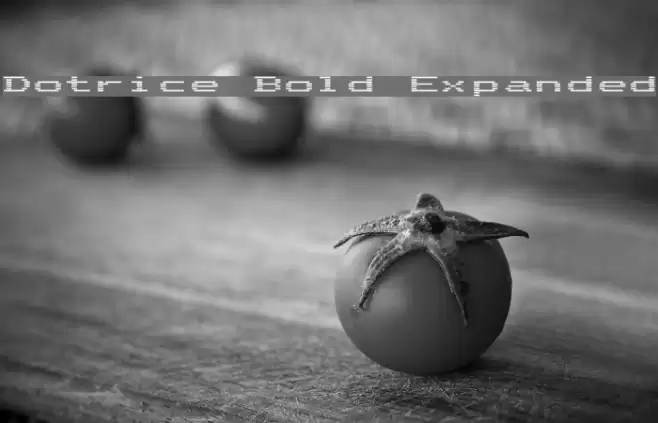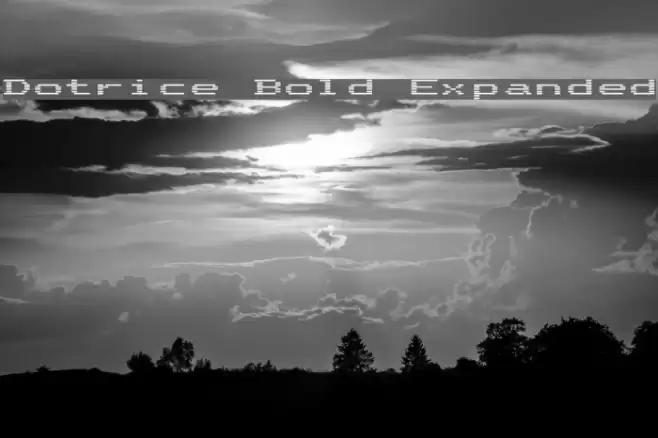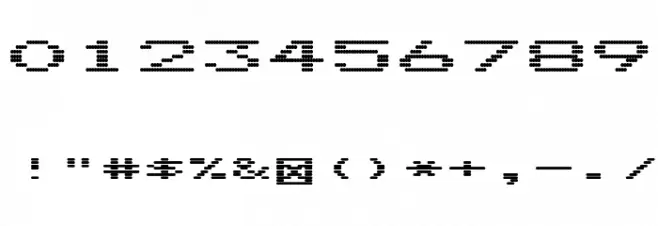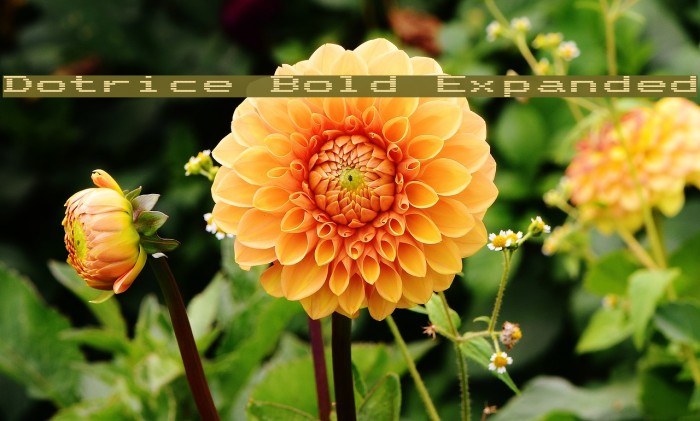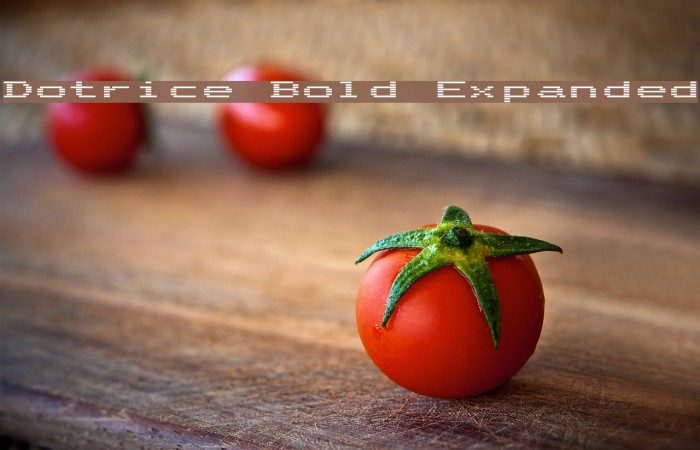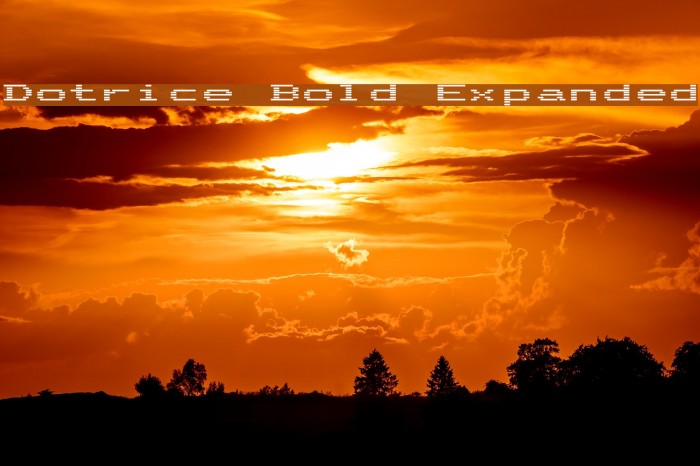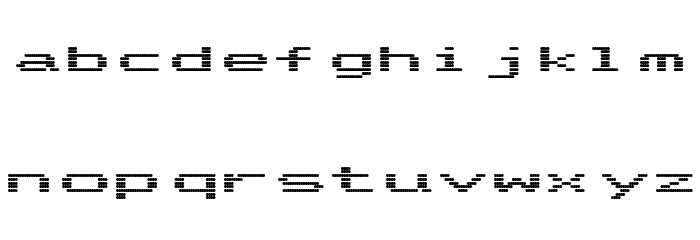
Dotrice Bold Expanded Font
Dotrice Bold Expanded Description
This font features a unique dot-matrix style, reminiscent of retro digital displays. Each character is composed of a series of dots arranged in a grid pattern, creating a bold and expanded appearance. The uppercase and lowercase letters maintain consistent spacing and structure, providing a uniform look. Numbers and special characters follow the same dot-based design, ensuring cohesion across all elements. This font's distinctive style makes it stand out, offering a nostalgic yet modern aesthetic.
A bold, expanded dot-matrix style font with a retro digital display vibe from Uncategorized fonts.
- Proposed Projects: Ideal for digital-themed projects, retro designs, tech branding, and creative posters.
- Width: Expanded
- Overall Style: Retro, Modern